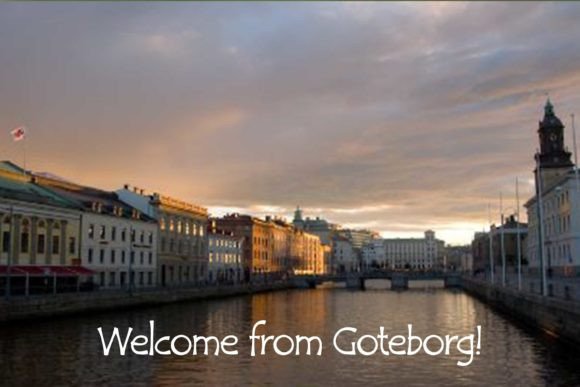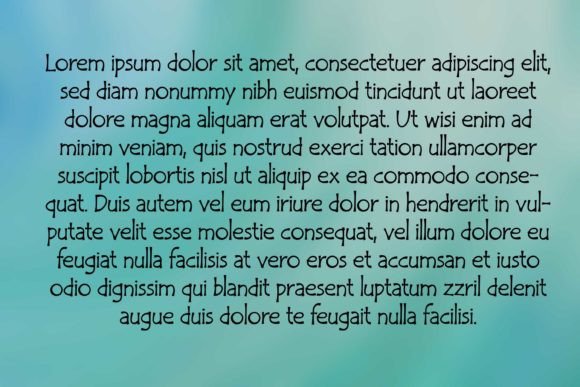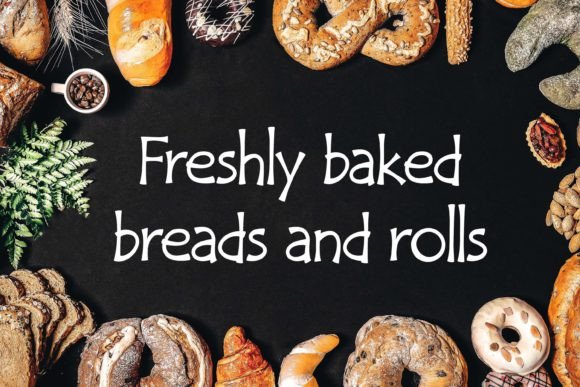
Introduction to Motyfa Font
As a designer, there’s nothing quite like that moment when a new project comes to life. The blank canvas stares back at you, full of possibilities, and you can’t wait to bring your vision to the world. But what if you had the perfect tool to elevate your design from ordinary to extraordinary? That’s where the Motyfa Font comes in – a stunning and versatile handcrafted serif font that’s sure to take your creative project to the next level.
Whether you’re working on a high-end branding campaign or a romantic wedding invitation, Motyfa Font is the perfect design resource to add a touch of sophistication and elegance. With its high-quality design and transparent background, this font is a game-changer for any designer looking to make a lasting impression. And the best part? It’s available for a free download, making it an accessible and valuable addition to your design arsenal.
Key Features of Motyfa Font
- High-quality design suitable for creative projects, offering a unique aesthetic.
- Includes a range of weights and styles, providing flexibility for various design applications.
- Designed to be highly legible, making it an ideal choice for body text and headings in creative projects.
Honest Review: Motyfa Font
As a designer, I’m always on the lookout for high quality design resources that can elevate my creative projects. The Motyfa Font is one such resource that caught my attention. I decided to give it a try and here’s my honest review.
- ✨ The Motyfa Font is a beautiful, elegant font that’s perfect for creative projects.
- ✨ The transparent background makes it easy to use on any design surface.
- ⚠️ The font may not be suitable for formal or professional projects, as it’s more geared towards creative and artistic pursuits.
- ⚠️ Some users may find the font a bit too ornate or distracting, depending on the design context.
Overall, I’m impressed with the Motyfa Font. It’s a great design resource for creative projects, and its high quality and transparent background make it a joy to work with. While it may not be suitable for every project, I would definitely recommend it to designers looking for a unique and elegant font.
The Motyfa Font is ideal for various creative projects, including social media graphics, presentations, and documents. Its high-quality design and free download status make it a valuable design resource for both personal and professional use.